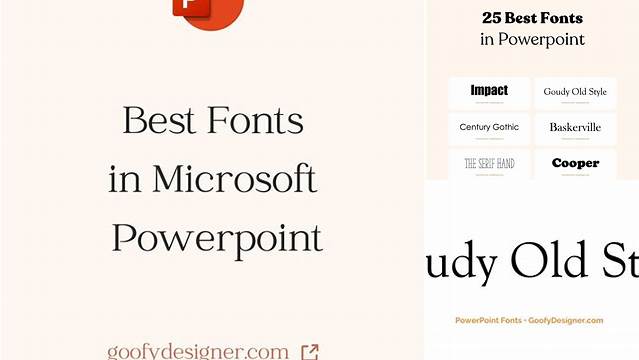
Best PowerPoint Fonts For Titles: Top Choices & Tips
Are you looking to supercharge your PowerPoint presentations? One of the easiest ways to do that is by selecting the right fonts for your titles. Believe me, guys, choosing the perfect font can make a world of difference! It can grab your audience's attention and keep them hooked throughout your presentation. In this guide, we'll dive into the best PowerPoint fonts for titles, discussing their strengths, and how to use them effectively to create stunning presentations. Let's get started, shall we?
Why Font Choice Matters in PowerPoint
Choosing the right font for your titles isn't just about aesthetics; it's about communicating effectively and leaving a lasting impression. A well-chosen font can significantly impact how your audience perceives your message. A clear and readable title font ensures your audience instantly understands the topic and purpose of each slide. It sets the tone for the entire presentation. A poorly chosen font, on the other hand, can lead to a cluttered or unprofessional appearance, potentially distracting the audience from the core message.
Clarity and Readability: The primary goal of a title font is to communicate clearly. Opt for fonts that are easy to read from a distance. Avoid overly ornate or complex fonts that can be difficult to decipher, especially in a large room. Legibility is key; you want your audience to grasp the title's meaning quickly and effortlessly. Think about the viewing environment. Consider the size of the screen and the distance from which the audience will be viewing the presentation. A font that looks great on your computer screen might appear blurry or illegible when projected. Always test your presentation on the screen it will be displayed on, or at least, on a larger screen, before the actual presentation.
Professionalism and Tone: The font you choose can significantly affect the overall tone of your presentation. For formal presentations, consider clean, professional fonts that exude authority and reliability. For more creative or informal presentations, you can get away with using more playful or unique fonts. Choose fonts that align with your subject matter and target audience. A font appropriate for a children's presentation would not be suitable for a corporate financial report. The tone should be consistent with your content; it can enhance or detract from the presentation's impact. A well-chosen font reflects your brand and creates a cohesive and polished appearance. This consistency helps build credibility and reinforces your message.
Visual Appeal and Branding: Titles are the first thing your audience sees, so the font you choose is an opportunity to make a great first impression. A visually appealing font can grab your audience's attention and make your presentation more engaging. Consider the visual style of your presentation and the font's personality. Does it convey the right image? Does it complement your content and branding? Think about your presentation's overall design. The title font should blend well with the other design elements, such as colors, images, and other fonts used in the body of your presentation. A cohesive design enhances the visual experience. If you are using a company presentation, stick with brand-consistent fonts.
Top Font Choices for PowerPoint Titles
Now, let's get to the good stuff. Here are some of the best PowerPoint fonts you can use for your titles. I've included some suggestions to help you pick the perfect title font:
1. Arial
Arial, a classic sans-serif font, is a favorite for a reason. It's incredibly versatile and easy to read, making it an excellent choice for various presentation topics. Its clean lines and simple design make it a top selection. You'll often see Arial used in everything from business presentations to educational materials. The key to making Arial work is to use it at an appropriate size. It is versatile enough to suit most presentation themes, but be cautious when pairing it with other fonts. Ensure there's sufficient contrast and that the overall design does not appear bland. This readability is enhanced when used with sufficient spacing between characters and lines. Arial's familiarity means that the audience can focus on the content rather than deciphering an unusual font.
Best Used For: Business presentations, educational materials, and general-purpose presentations where clarity is paramount. It works well for those wanting a professional and straightforward look.
Why it's great: Its simplicity and high readability make it a safe and effective choice for titles.
2. Calibri
Calibri is another sans-serif font that's become a default option in many applications. Its slightly rounded edges make it a bit more friendly and modern than Arial. Calibri is designed for screen readability, making it perfect for PowerPoint presentations. Its balanced proportions and distinct letterforms make it easy to distinguish each letter, contributing to excellent readability. Unlike Arial, Calibri has a softer, less rigid feel. Calibri works well in various contexts, including business and informal presentations. Ensure the font size is adequate, and use appropriate font weights to highlight key information within titles. Calibri's widespread use means your audience will be comfortable with it. Pair it with a clear body font to maintain design consistency and ensure your presentation appears polished and professional.
Best Used For: Modern presentations, corporate reports, and any situation where you want a clean, contemporary look.
Why it's great: It offers a fresh, modern feel while maintaining excellent readability.
3. Helvetica
Helvetica is a very clean sans-serif font. It's renowned for its clarity and neutrality. Its versatility makes it ideal for a wide range of presentation topics and is easy to read from a distance. It has a timeless quality and a wide variety of weights and styles, allowing for flexibility in title design. Helvetica excels when paired with strong, visual elements. Remember, due to its simplicity, it is vital to ensure the titles are appropriately sized and spaced to maximize impact. Its clean lines work well with various design styles. Ensure your presentation's other design elements complement this font. Use Helvetica in titles where readability and a professional appearance are important. Pair with a sans-serif font for the body text to create a consistent and balanced layout. Helvetica’s strength lies in its simplicity and legibility, making your message accessible to any audience.
Best Used For: Presentations where a clean, modern, and professional aesthetic is needed, such as corporate presentations.
Selecting the right font for your PowerPoint titles is a crucial step in creating effective and engaging presentations. By choosing the right fonts, you can improve readability, enhance your presentation's visual appeal, and create a memorable experience for your audience. Arial, Calibri, Helvetica, Open Sans, Bebas Neue, and Lato are all fantastic choices, depending on your presentation's needs. Remember to consider readability, professionalism, visual appeal, and branding when making your decision. So, go out there, experiment, and create some amazing presentations! Good luck!